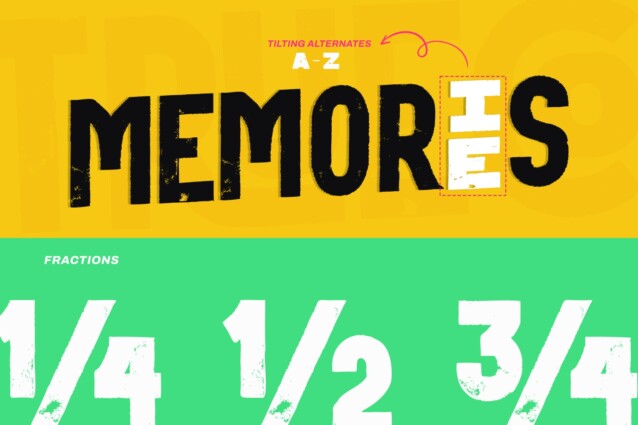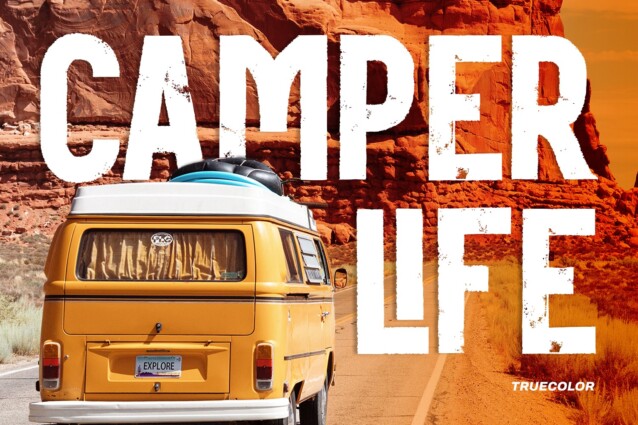
Truecolor Font
Truecolor Font is a bold display typeface created by Din Studio with a unique, detailed, and handmade look. The characters in this font are characterized by their robust, square forms, which give the font a sense of solidity and reliability. Each letter is meticulously designed to maintain a cohesive and balanced appearance, adding an air of authority and visual impact to your text. It has the power to transform your text into a striking focal point, ensuring that every word is seen and remembered. In addition, you can also enjoy the features here.